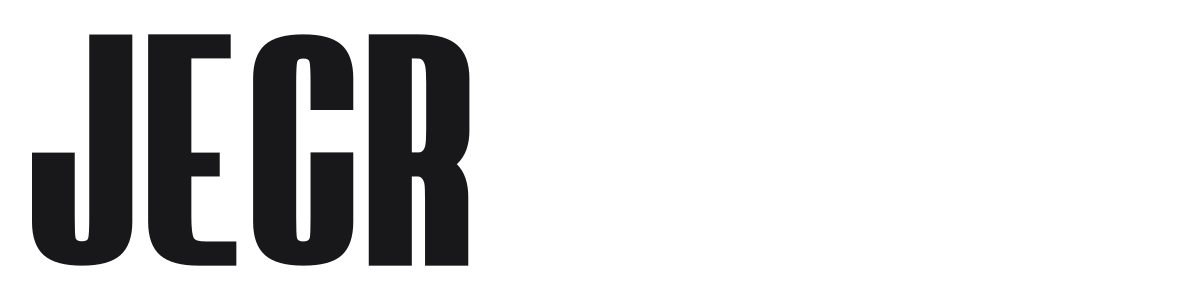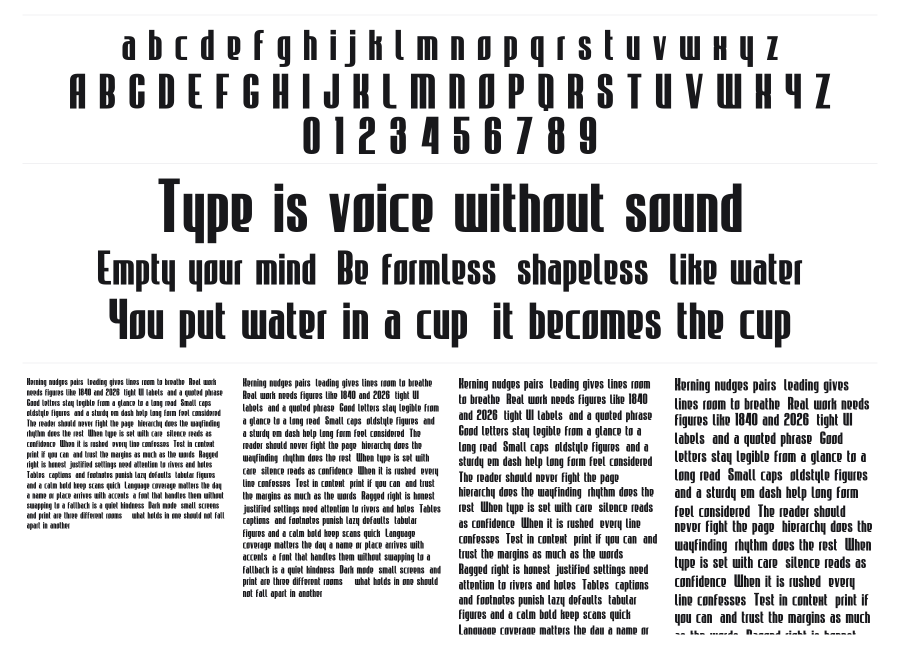
JECR
JECR is a heavily condensed grotesque sans with extreme vertical compression and bold weight that commands attention at large sizes. The squared terminals and tightly packed characters give it a raw, industrial quality that leans toward urban and editorial aesthetics. Best deployed as a headline or identity element where visual impact matters most.